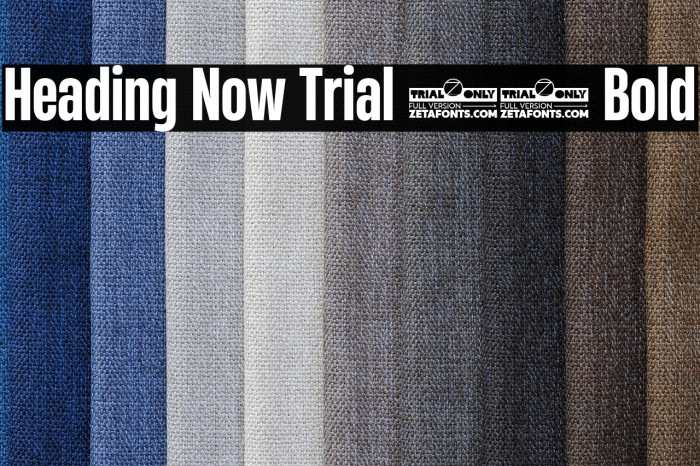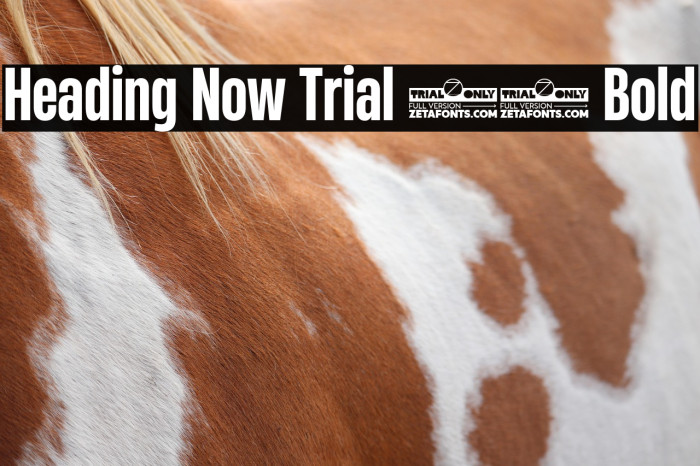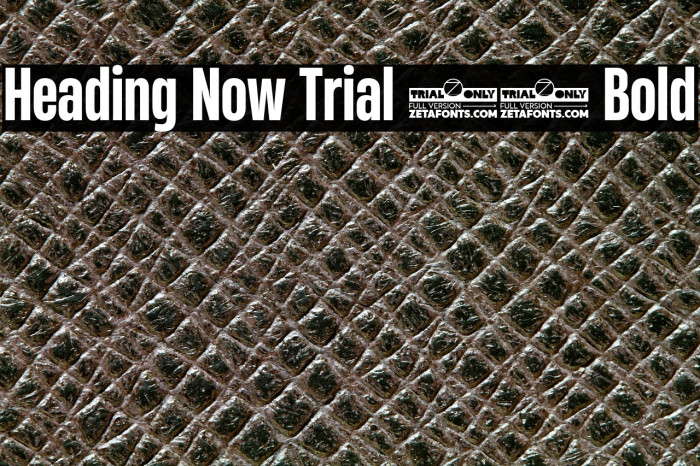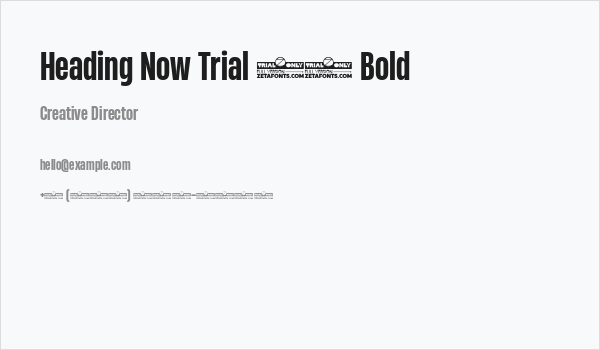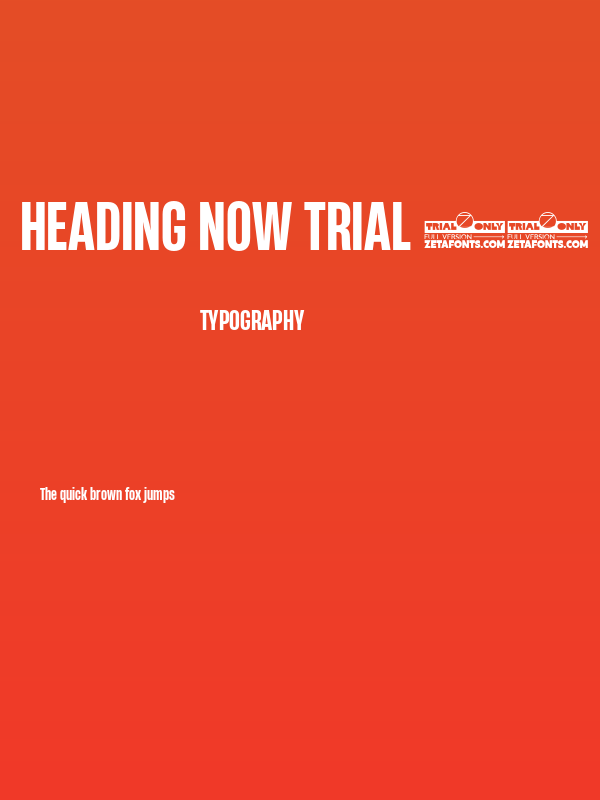
Heading Now Trial 46 Bold Font
Heading Now Trial 46 Bold Description
This font features a bold and impactful design, characterized by thick, uniform strokes that convey strength and modernity. The uppercase and lowercase letters are well-proportioned, maintaining a consistent width that enhances readability. The font's geometric structure is evident in its clean lines and sharp edges, making it suitable for attention-grabbing headlines. The numerals and special characters are designed with the same boldness, ensuring a cohesive appearance across all text elements. Its overall style is modern and assertive, ideal for projects that require a strong visual presence.
| Proposed Projects | Ideal for headlines, posters, branding, and advertising that require a strong visual impact. |